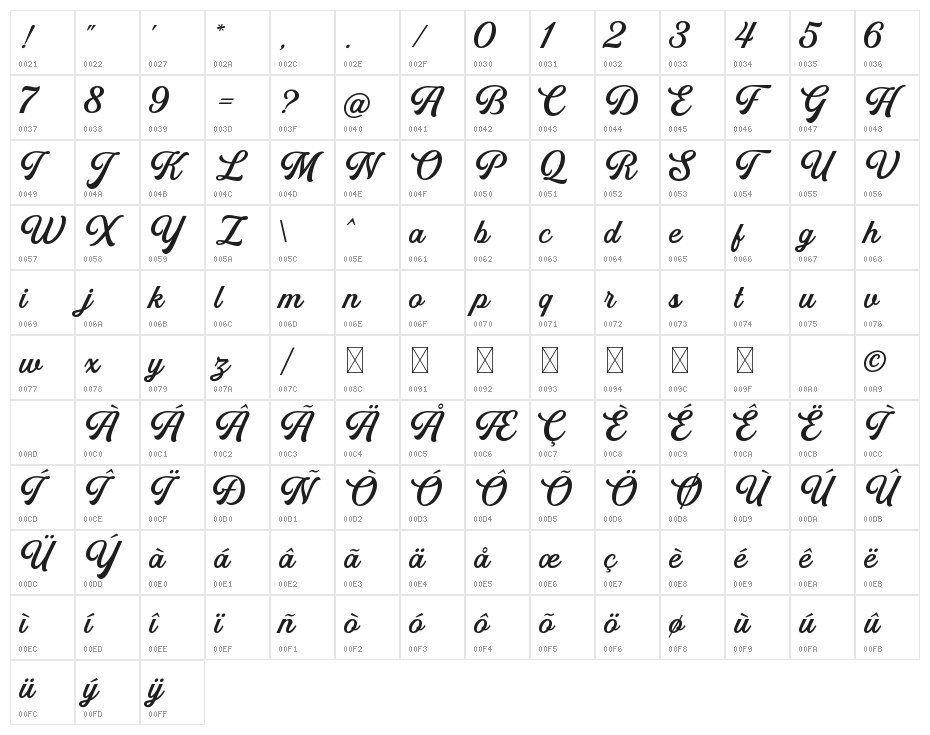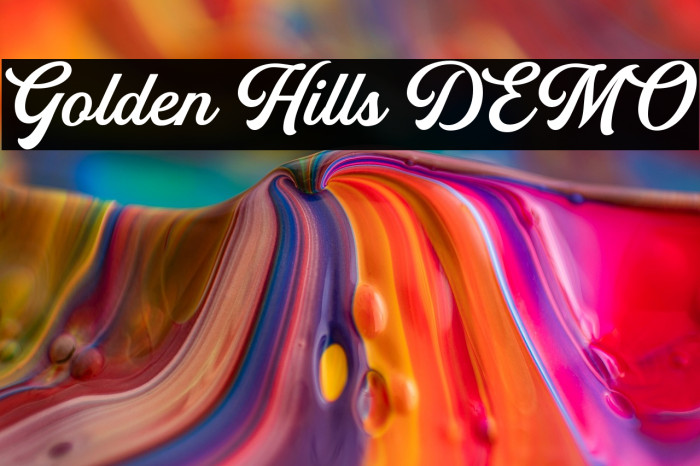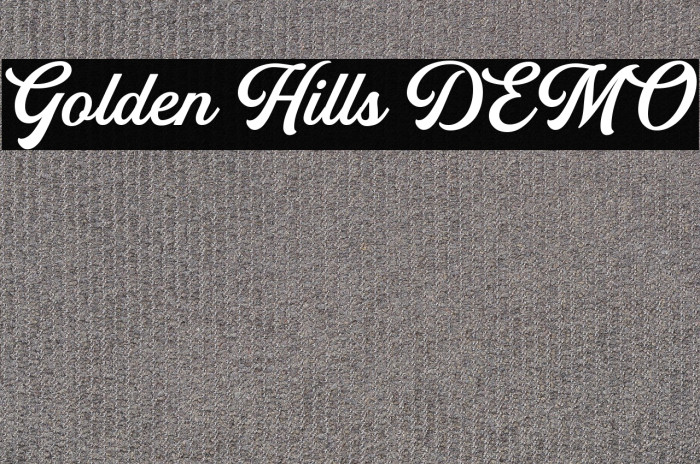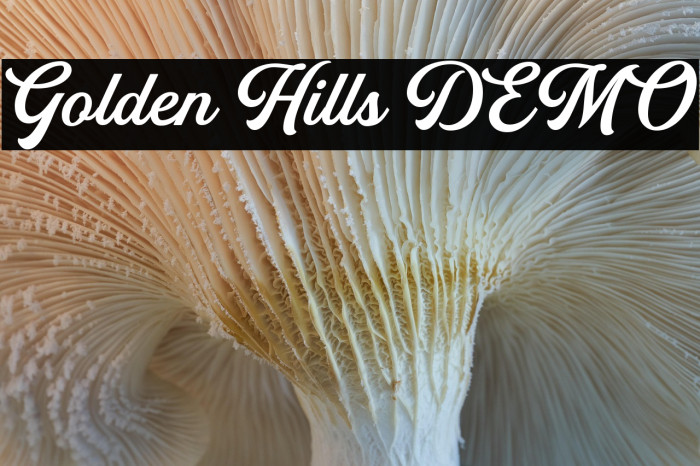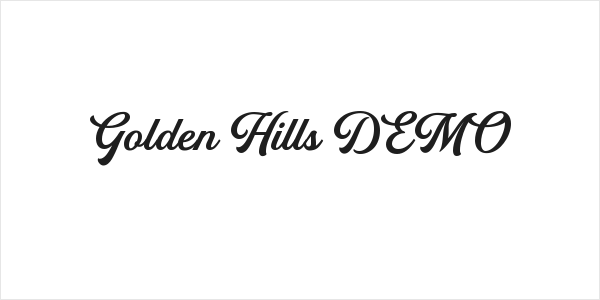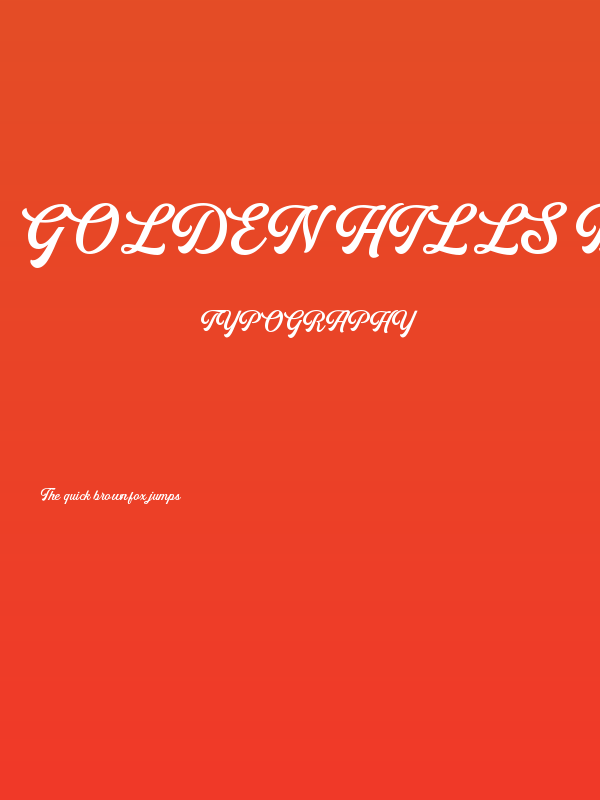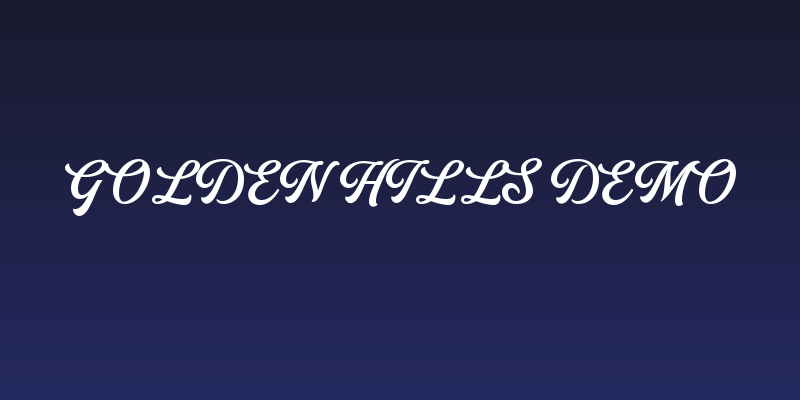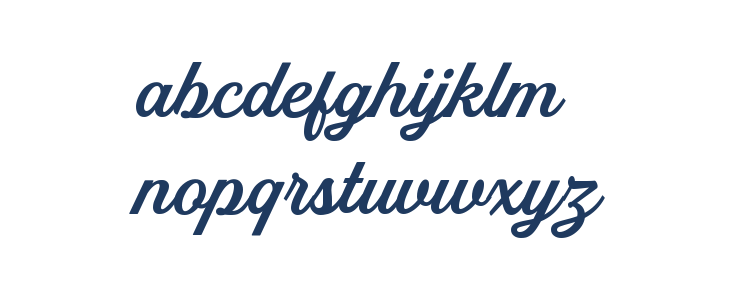
Golden Hills DEMO Font
Golden Hills DEMO Description
This elegant script font features a flowing, cursive style with smooth, rounded edges and a consistent slant to the right. The uppercase letters are ornate and slightly larger than the lowercase, which are more compact and closely spaced. The numerals are bold and maintain the same cursive flow, ensuring consistency across all characters. Special characters are designed to complement the overall aesthetic, adding a touch of sophistication. This font exudes a sense of grace and formality, making it suitable for a variety of decorative applications.
| Proposed Projects | Ideal for wedding invitations, elegant branding, greeting cards, and high-end product packaging. |